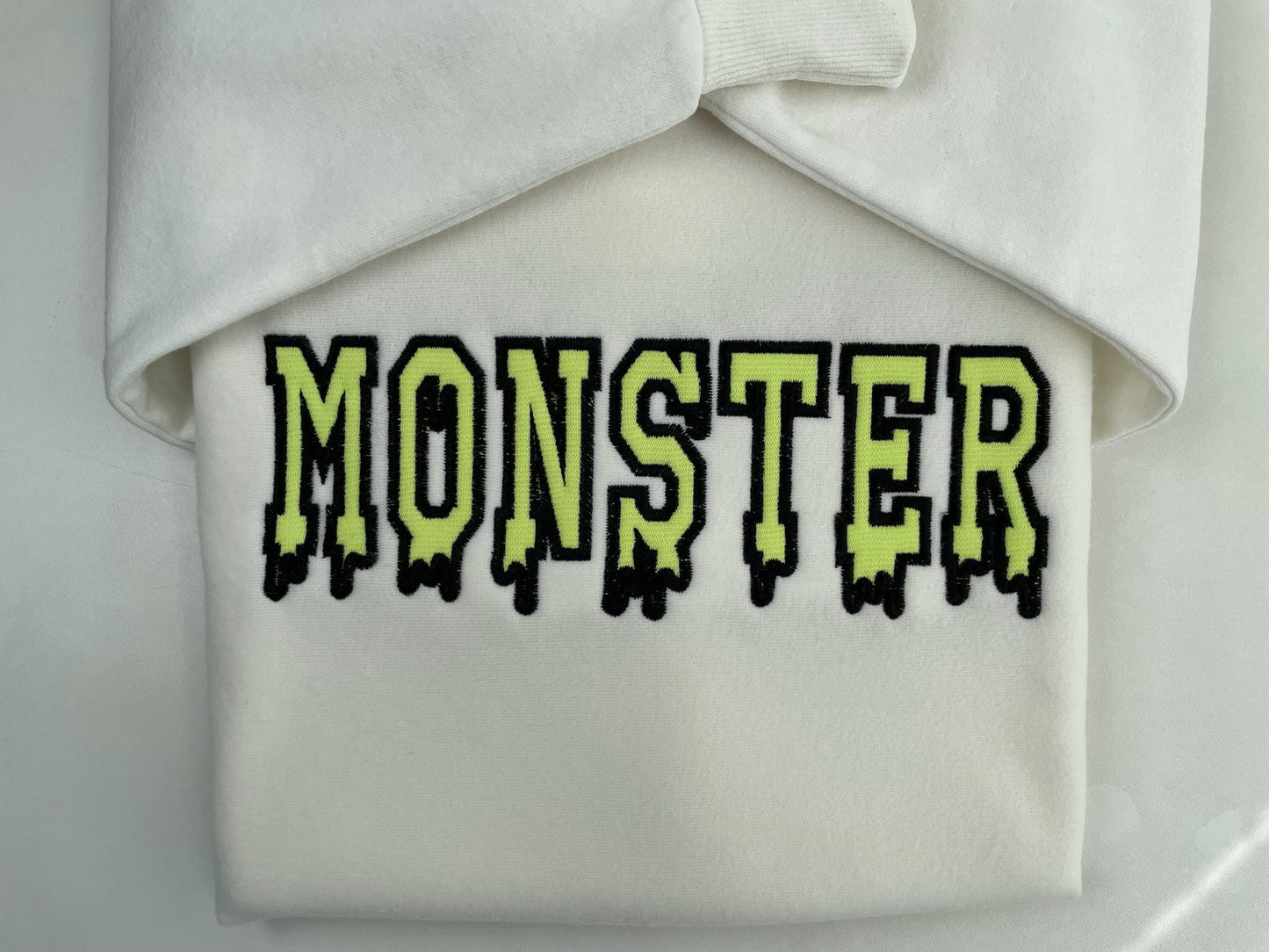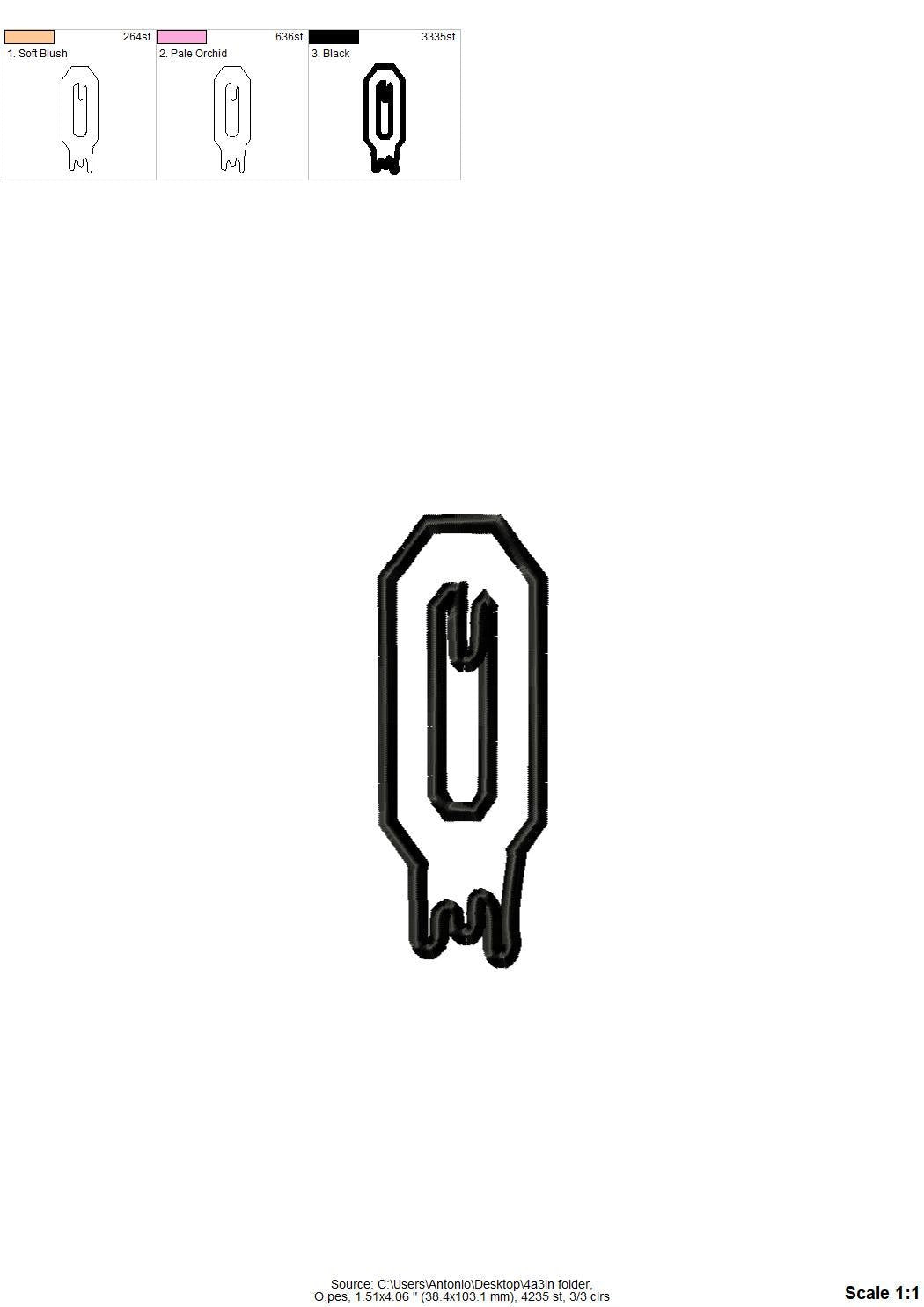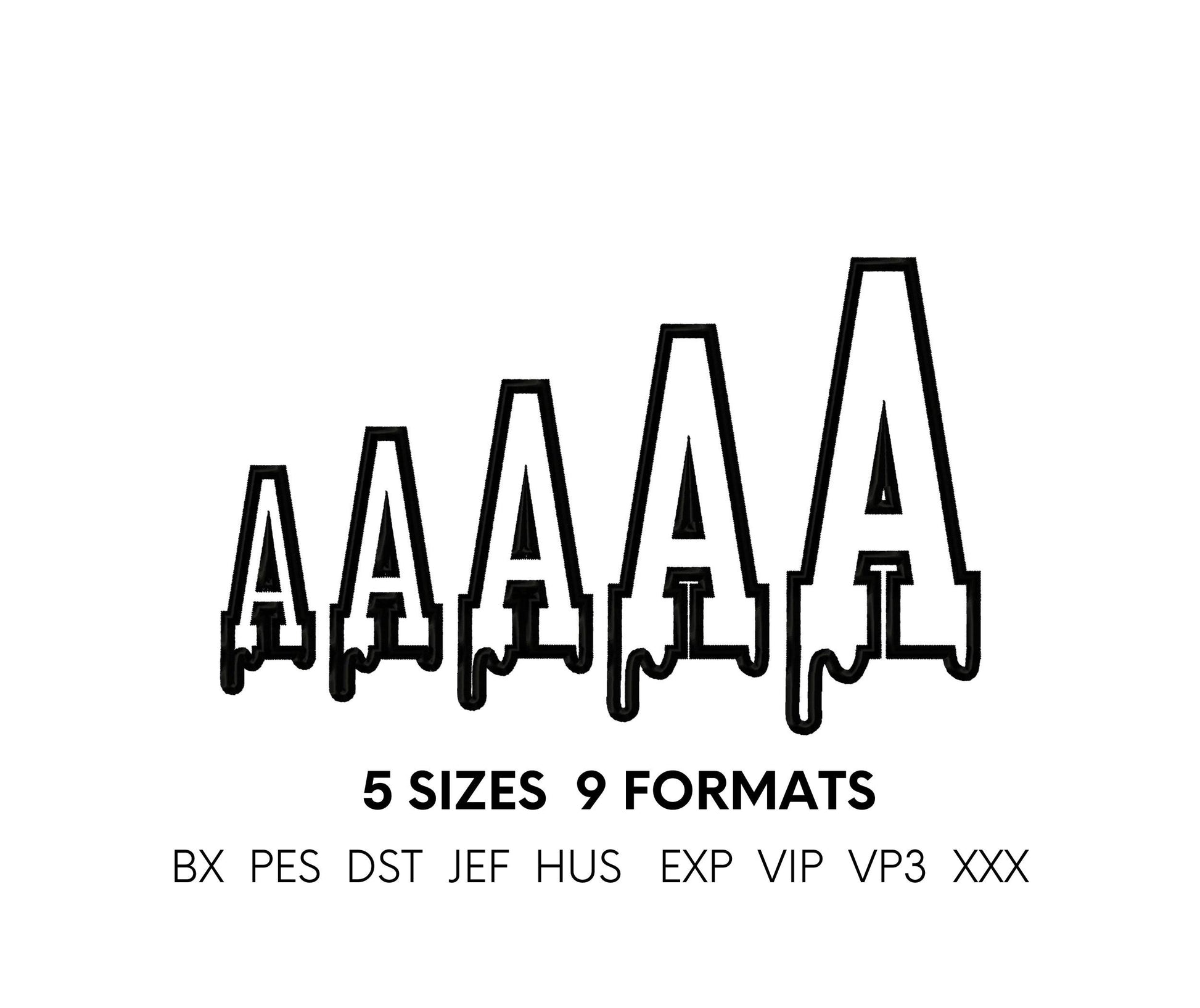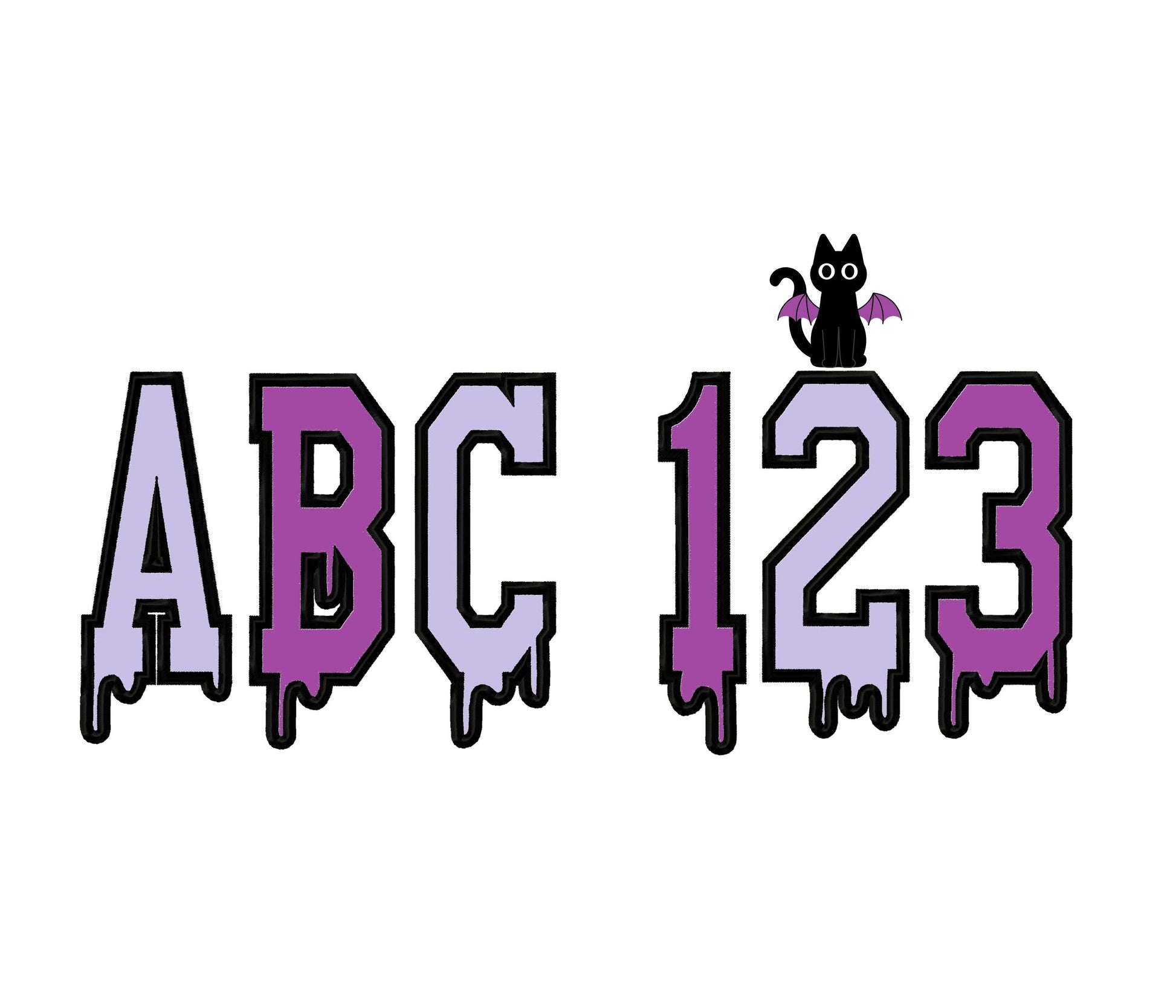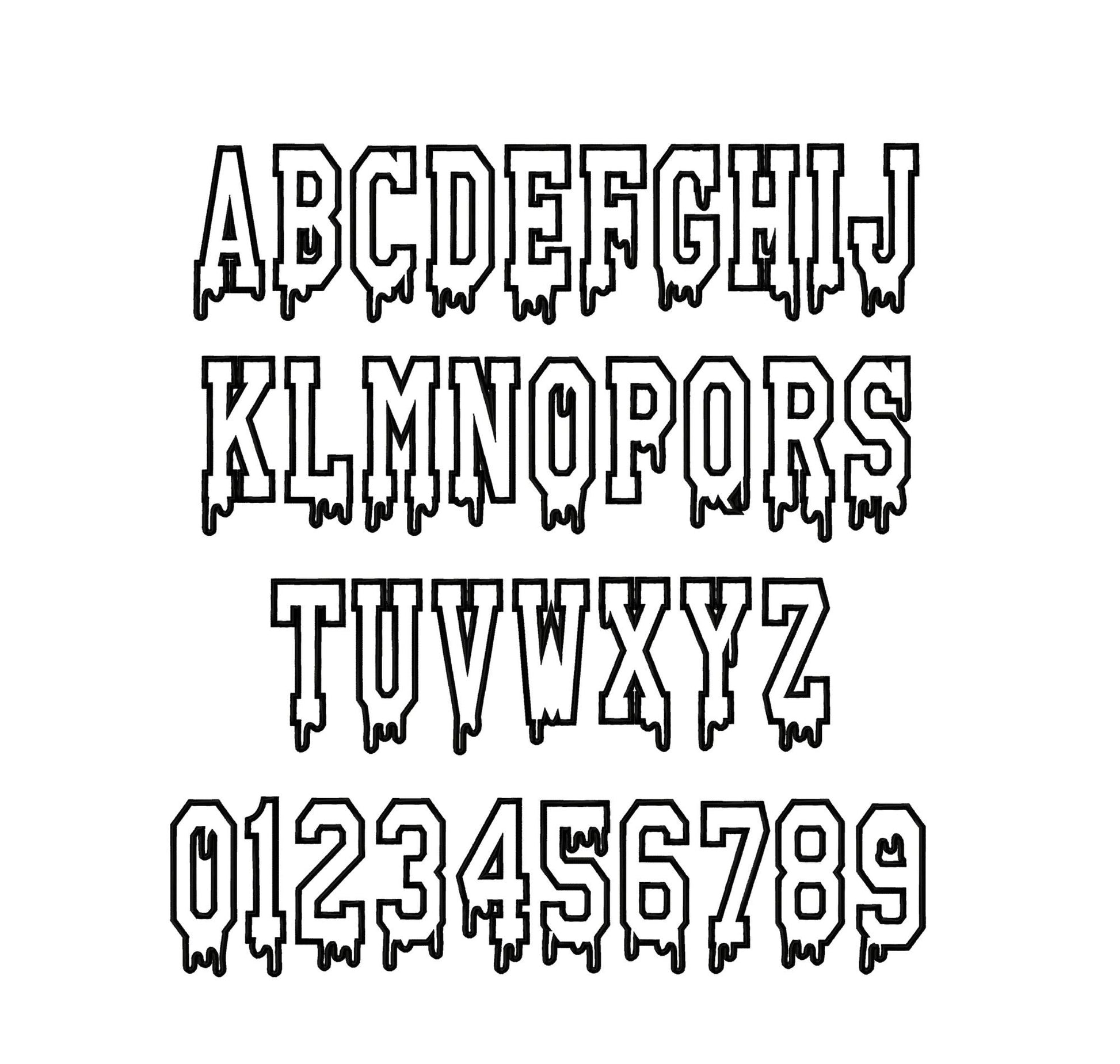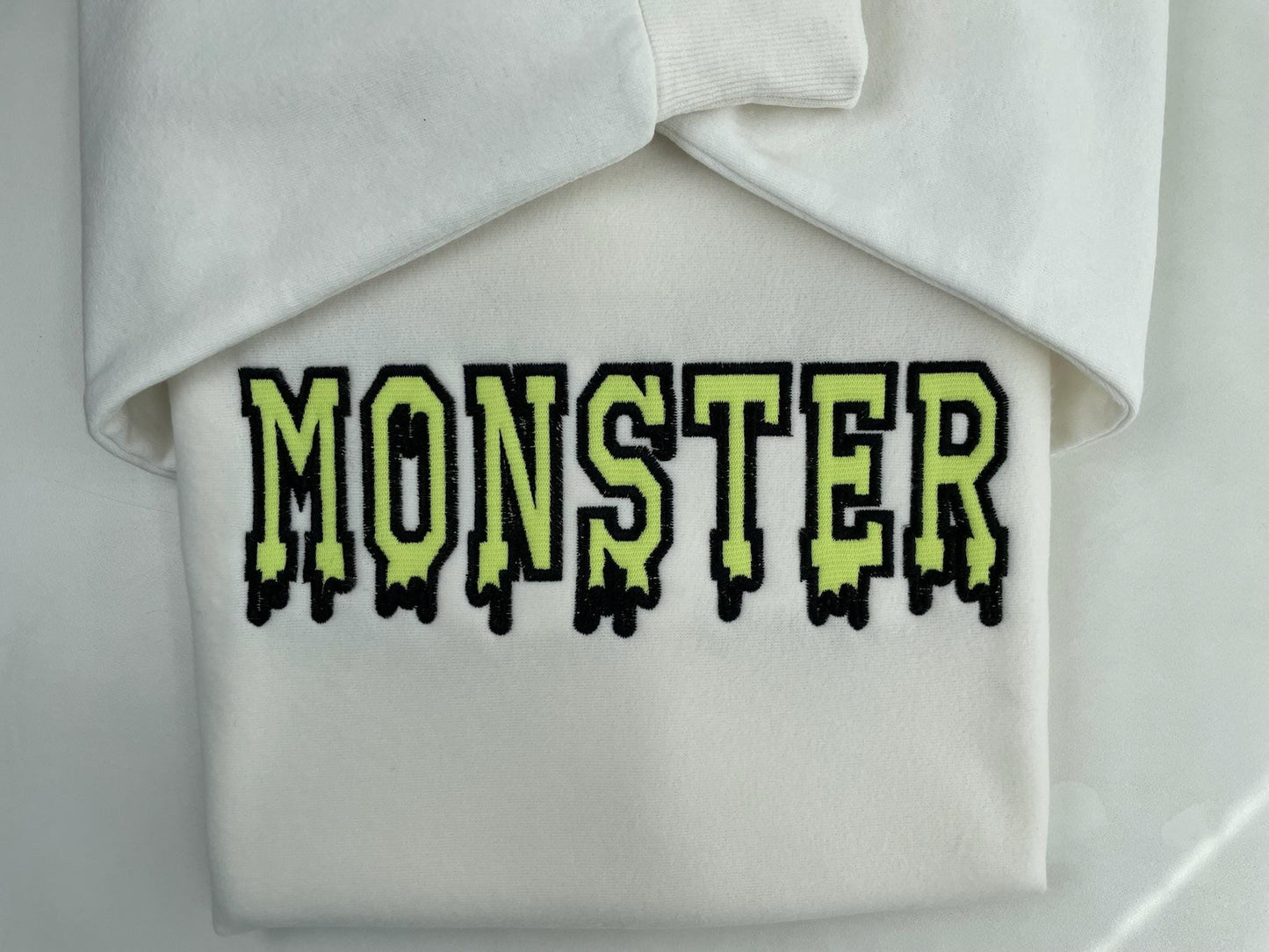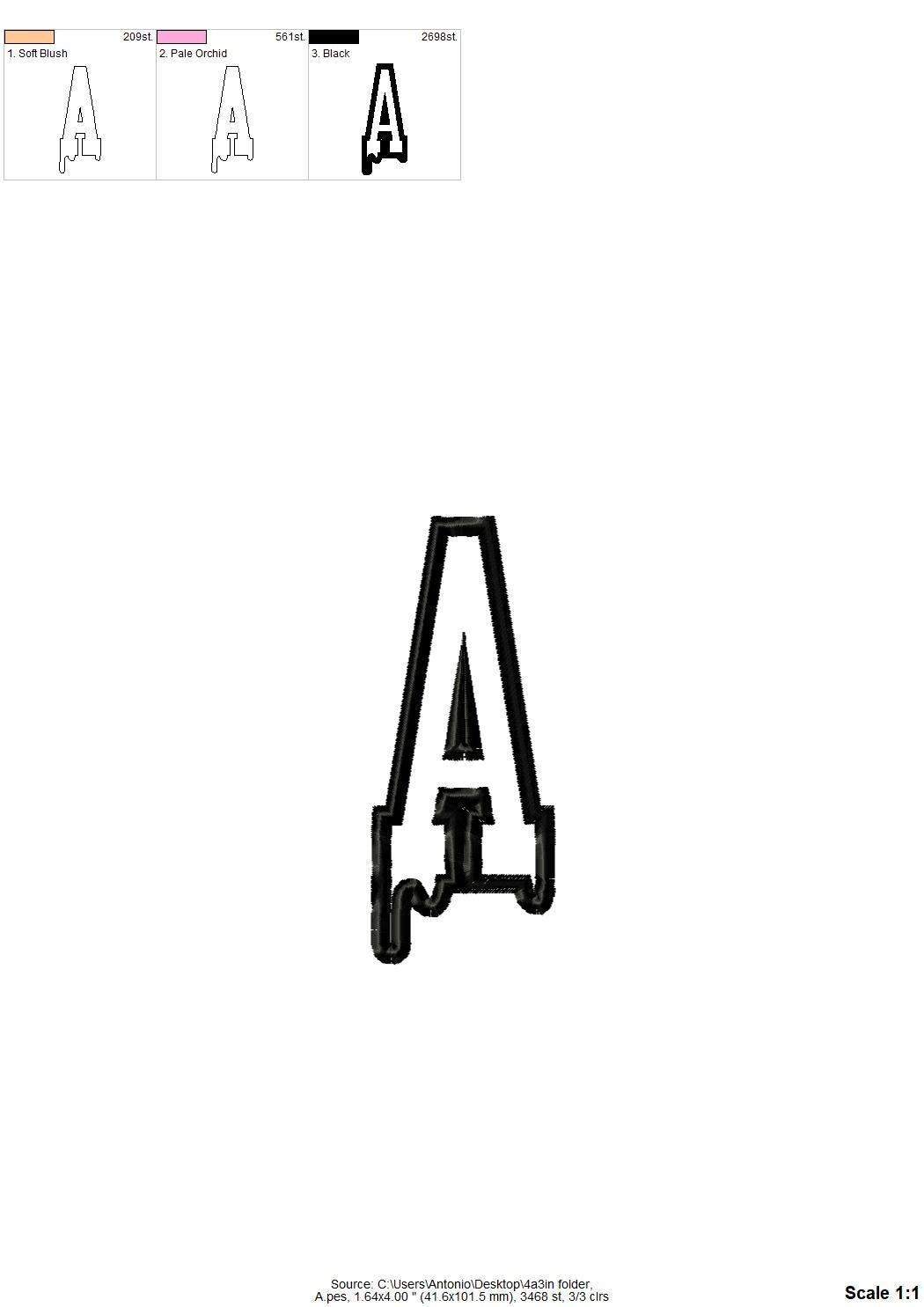
Or click to open the linkA spooky melted varsity font stitched as applique, with dripping edges. Fun for Halloween shirts, treat bags and kids' names.